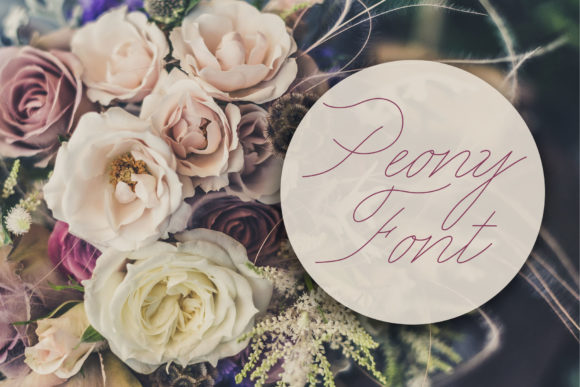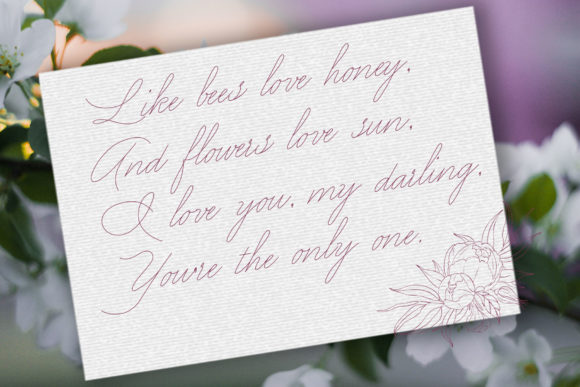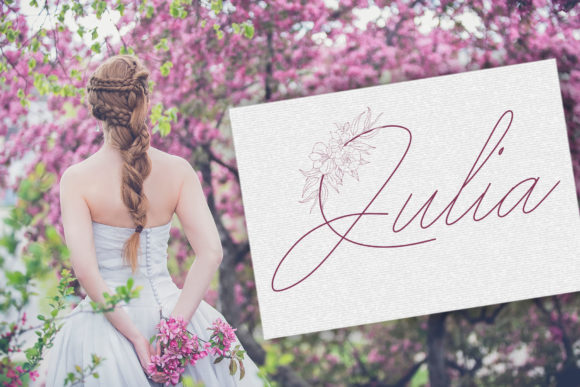
About Peony Font
Peony is a refined and elegant handwritten font that adds a touch of sophistication to your designs. With its thin and graceful letterforms, this font is perfect for creating stunning wedding invitations, beautiful stationery art, eye-catching social media posts, and various other projects that require a delicate and versatile style.
The thin and classic nature of Peony lends it a timeless appeal, making it a popular choice for wedding-related designs. Whether you’re designing elegant invitations, save-the-date cards, or wedding programs, this font adds a touch of romance and refinement. Its slender letterforms evoke a sense of grace and delicacy, perfectly capturing the beauty and joy of a wedding celebration.
Beyond weddings, Peony can be used for a wide range of projects that call for a sophisticated and versatile font. Its versatility allows it to shine in various design contexts, such as branding materials, logo designs, elegant quotes, blog headers, and social media graphics. Whether you’re aiming for a modern, minimalist look or a more vintage-inspired aesthetic, Peony adapts effortlessly to your design vision.
The classic and timeless quality of Peony also makes it suitable for creating beautiful stationary art. Whether you’re designing custom notecards, art prints, or personalized stationery, this font adds a touch of elegance and refinement to your creations. Its thin and flowing letterforms create a sense of fluidity and movement, making your designs visually appealing and captivating.
Peony’s versatility extends to digital platforms as well. It is well-suited for eye-catching social media posts, blog graphics, and website headers. Whether you’re promoting a special offer, sharing an inspirational quote, or showcasing your creative work, Peony’s delicate and refined style adds a touch of sophistication to your visual content.
When working with Peony, you can experiment with different layouts, color palettes, and complementary fonts to create truly stunning designs. Its thin and classic letterforms provide a clean and elegant foundation for your creativity to flourish.
In summary, Peony is a thin and classic handwritten font that offers incredible versatility and elegance. Whether you’re designing wedding invitations, stationary art, social media graphics, or other creative projects, this font adds a touch of sophistication and beauty. Fall in love with Peony’s timeless style and let it elevate your designs to new heights of elegance and refinement.